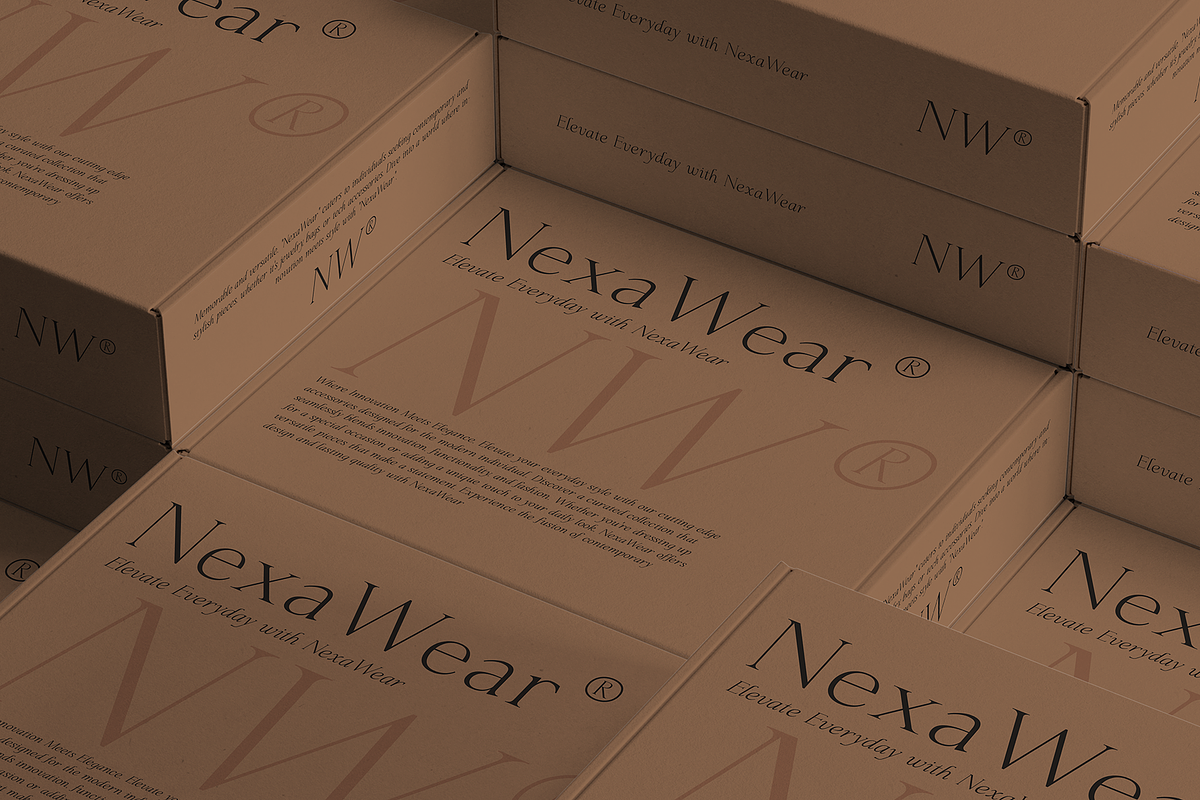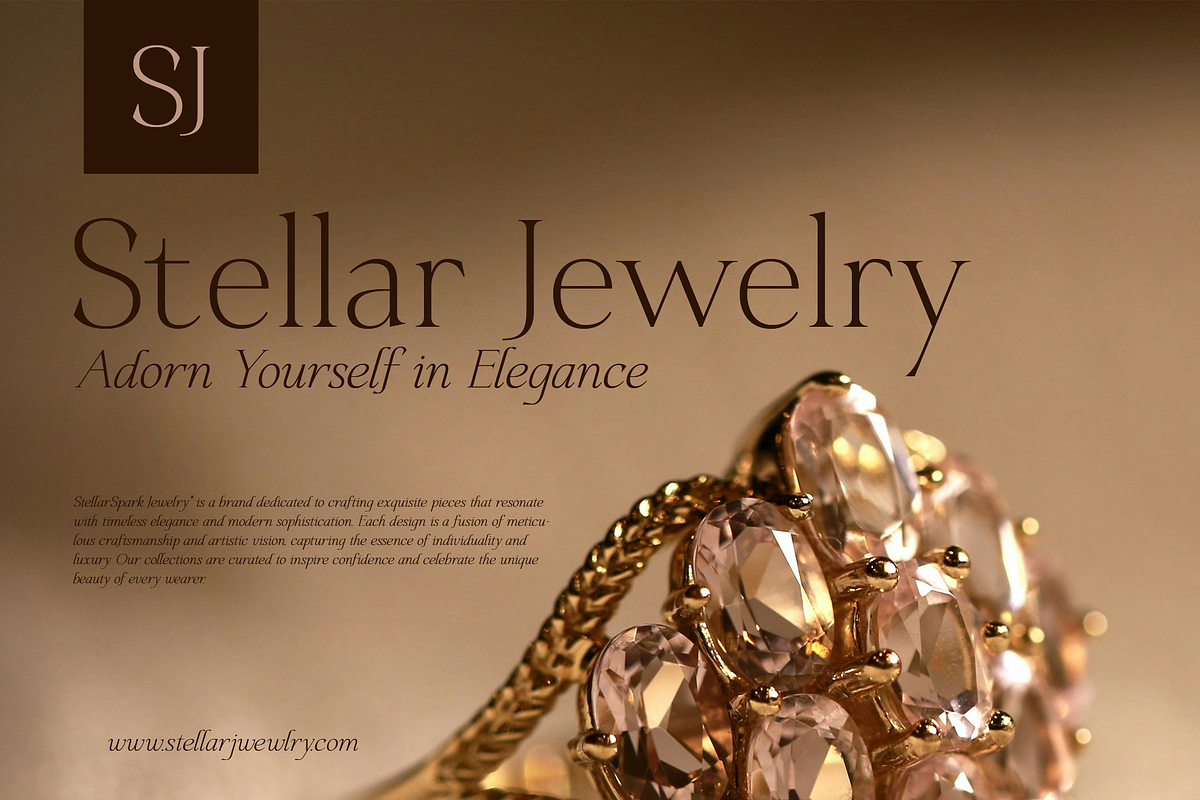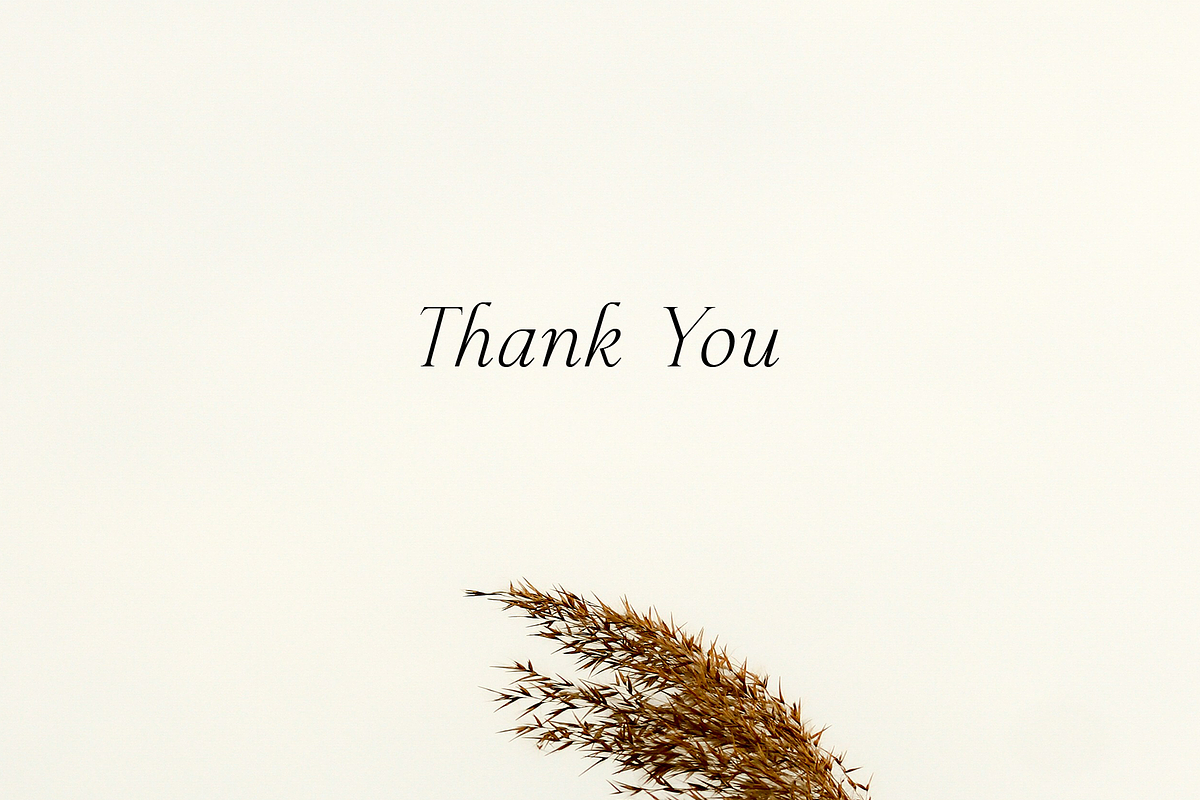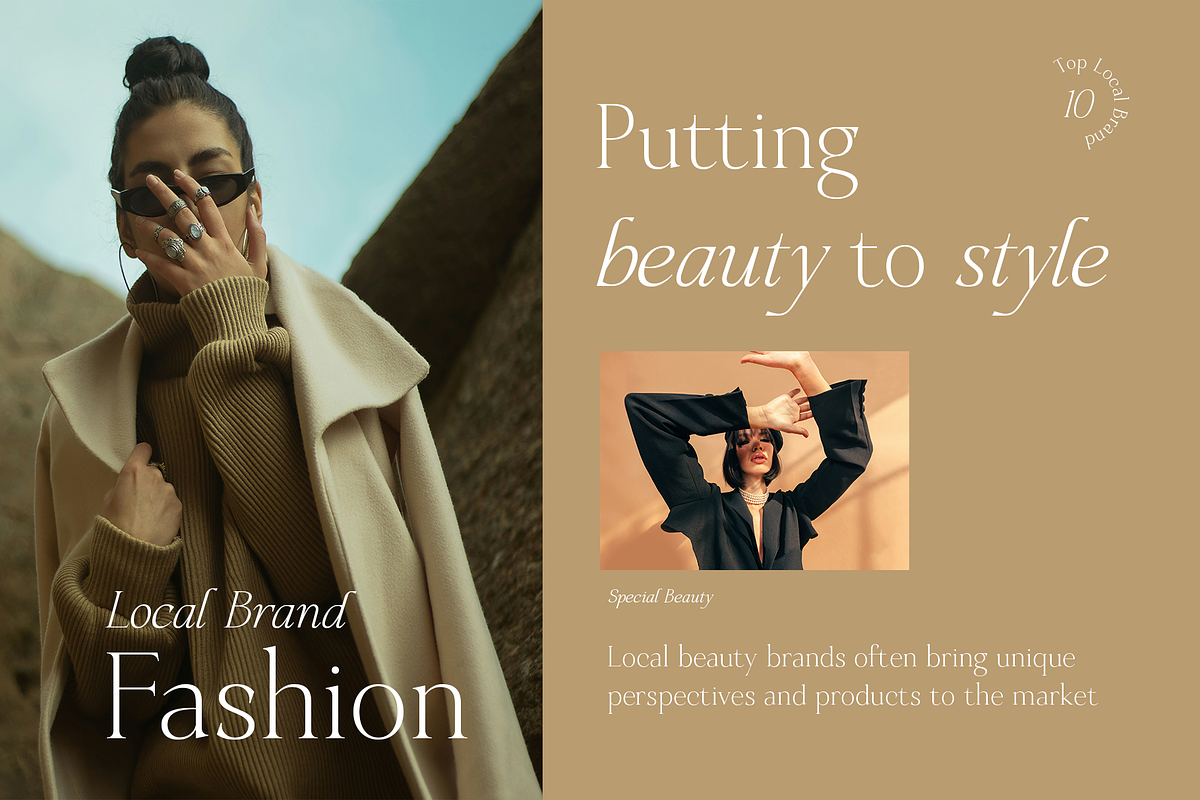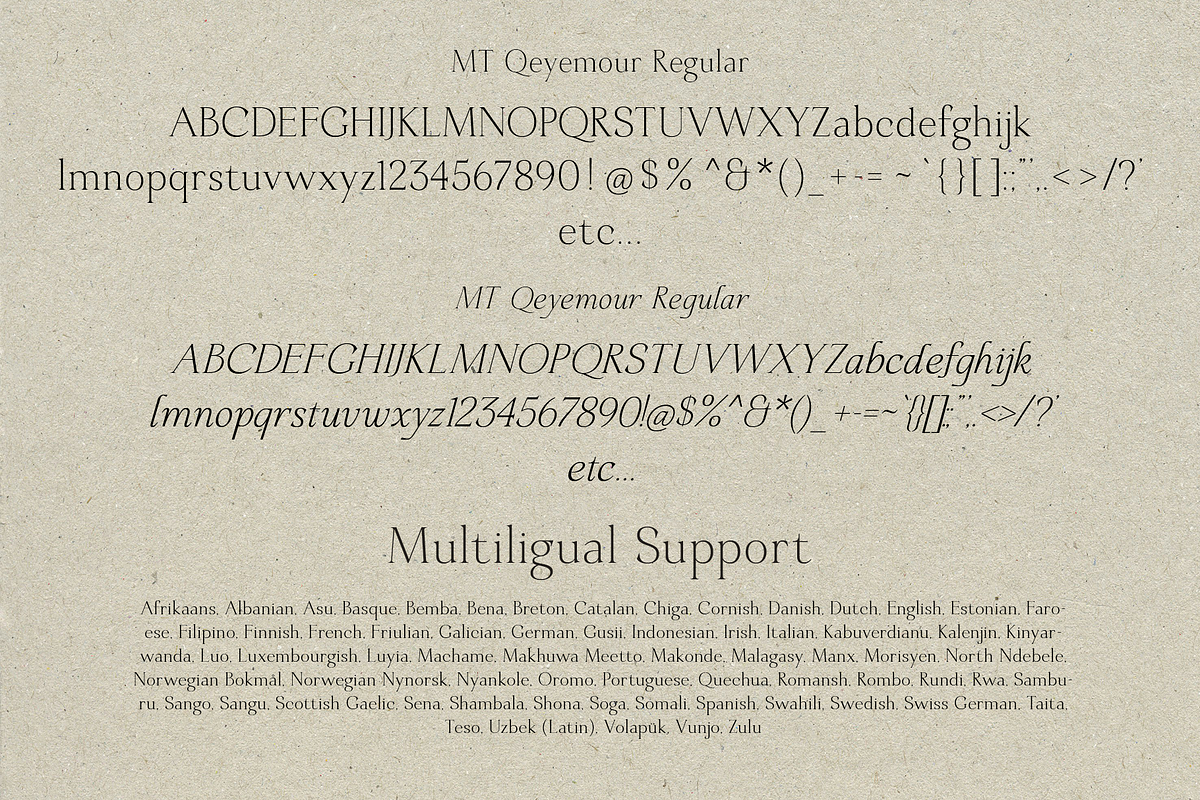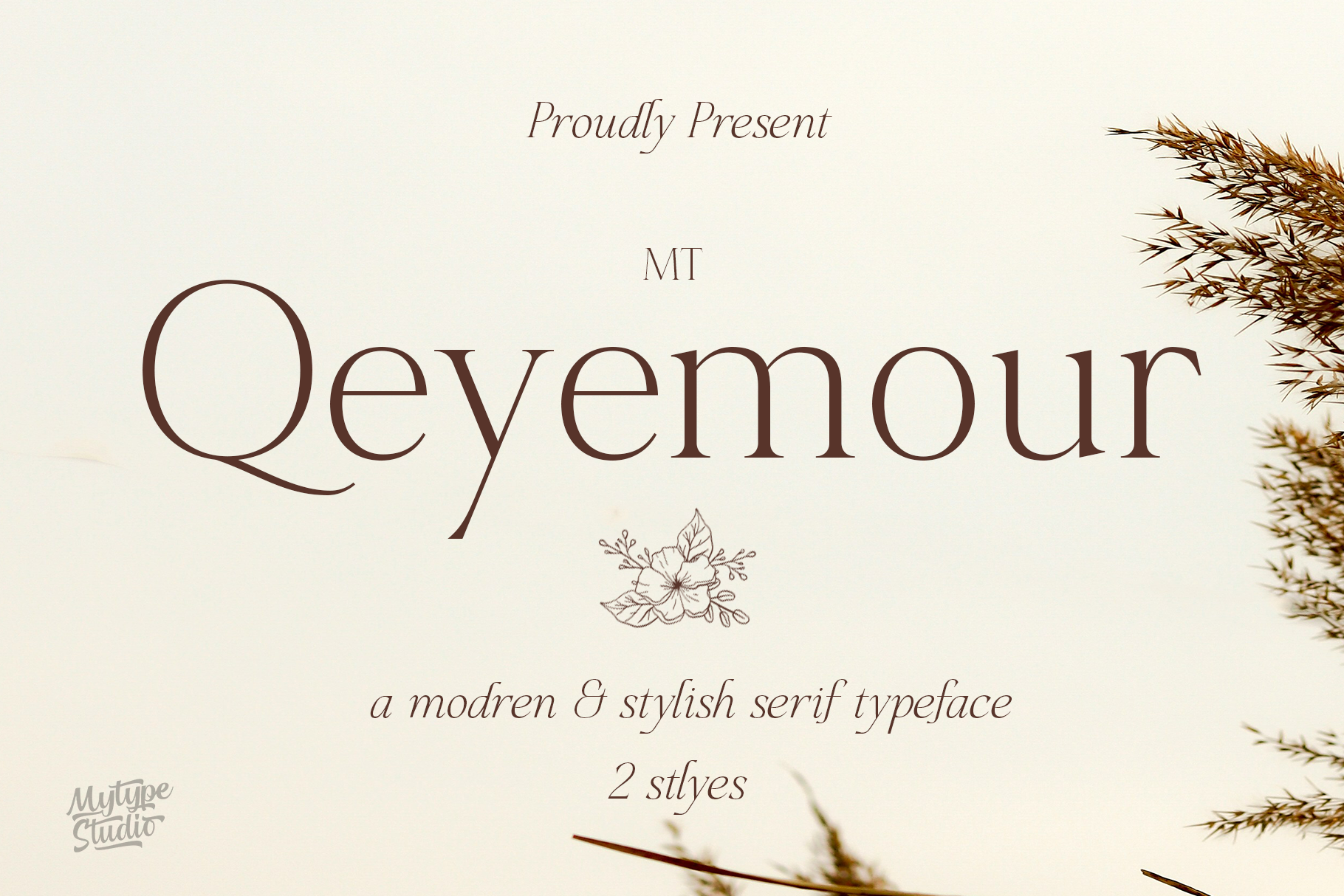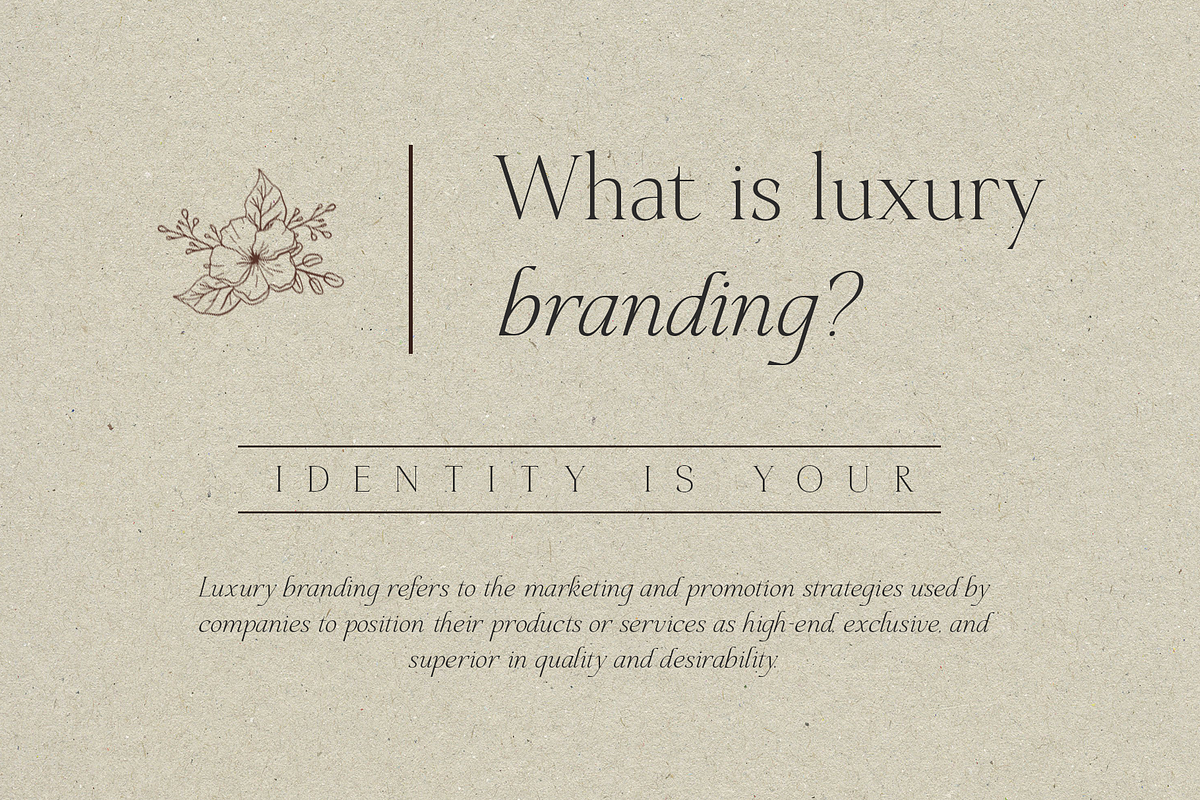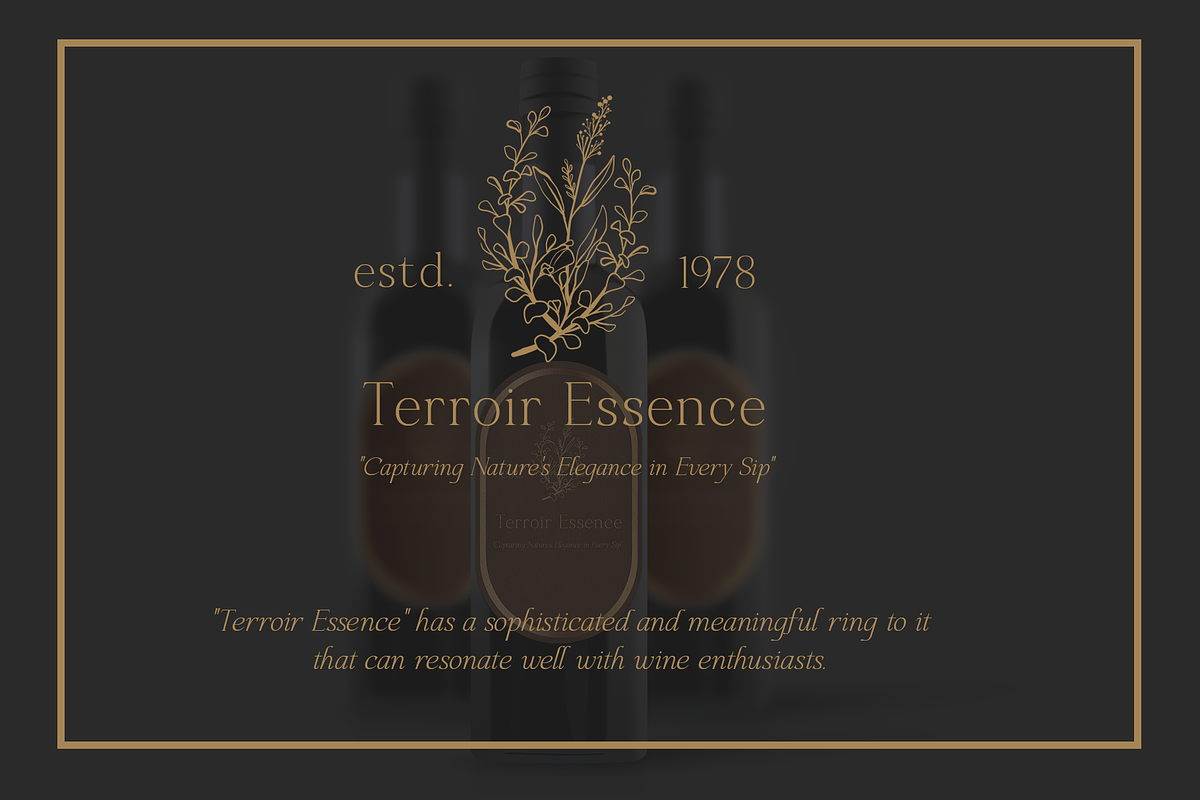
MT Qeyemour | Serif Typeface
Introducing our latest font creation: a captivating serif typeface that embodies a perfect balance of classic elegance and contemporary flair. With its high contrast strokes, this font commands attention and adds a touch of sophistication to any design project.
The italic version of this font takes elegance to the next level, offering a fluid and dynamic aesthetic that is both modern and timeless. Its slanted and graceful letterforms effortlessly convey a sense of movement and style, making it ideal for adding a touch of luxury to editorial designs, branding, and more.
Whether you're crafting a high-end magazine layout, designing a chic logo, or creating elegant invitations, this serif font with its exquisite italic variant is sure to elevate your work and leave a lasting impression. Embrace the beauty of timeless typography with a contemporary twist.